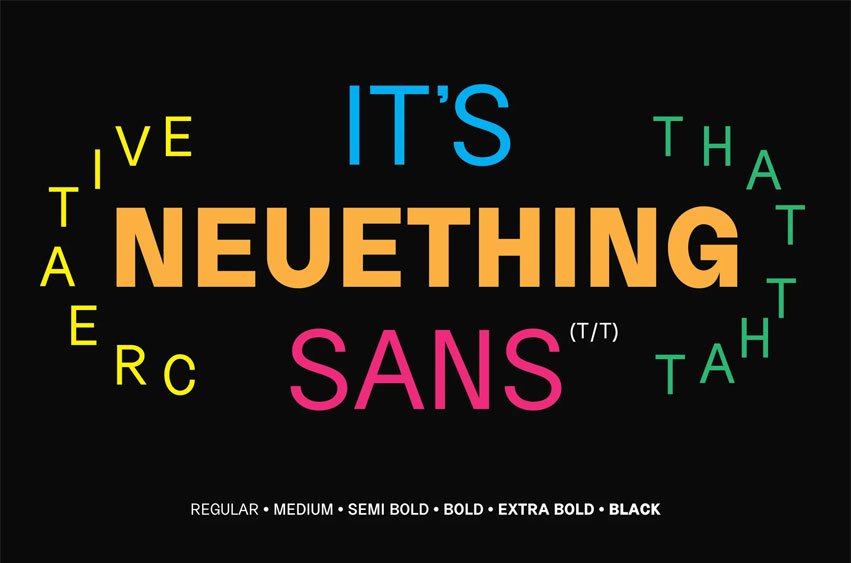
Neuething Sans Font is that that creative’s work horse clean simple sans serif. It is extremely versatile, and I use it in every project because it pairs so well with any other typeface. It is perfect for body or headlines, posters, magazines, Instagram, books, branding, you name it.
It has been meticulously crafted and refined over months and months until it has just enough personality to be a beautiful sans without calling attention to itself. This is your new go-to geometric sans serif. Whether it’s modern, vintage, retro, contemporary, this can fit in anywhere. Helvetica who? Am I right…
- SIX Weights
- Multilingual Characters
- Numbers and Symbols